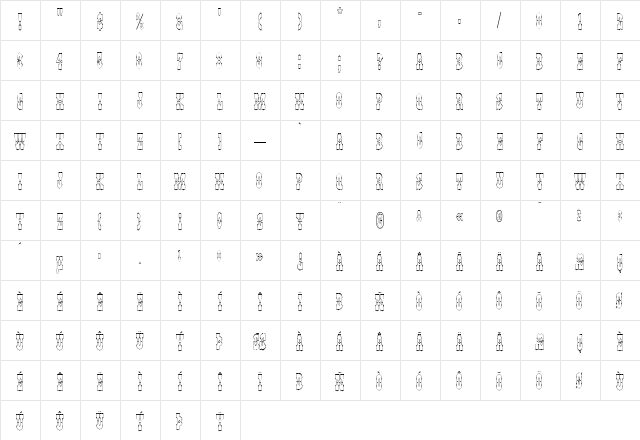
PepperwoodOutline Roman
Design Context for PepperwoodOutline Typeface
PepperwoodOutline taps into classic Western woodtype traditions — bold, characterful, and impossible to ignore.
A natural fit for craft spirits, ranch branding, rodeo events, and Americana-inspired design work.
Font Pairing: Combine PepperwoodOutline with a simple slab or neutral sans — period-accurate companions reinforce the vintage feel without competing for attention.
Pro Tip: Use PepperwoodOutline for short, impactful bursts of text — it shines in poster headlines and product names rather than extended copy.